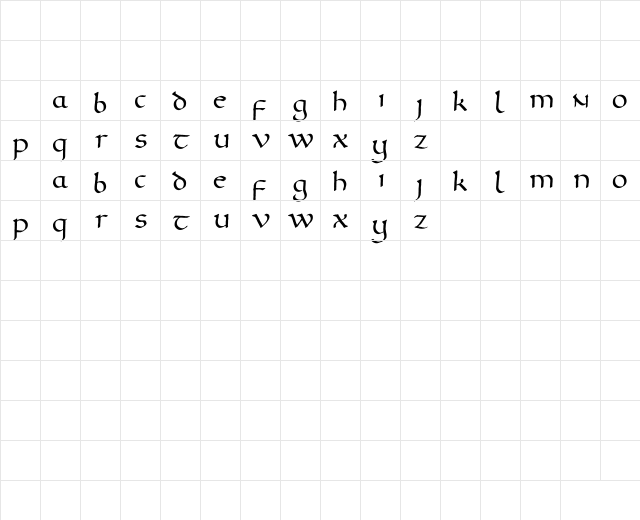
Complete Gourdie Uncial Deux Regular glyph index. Displaying only characters natively supported by Gourdie Uncial Deux Regular font.
Gourdie Uncial Deux is a composed and adaptable typeface that performs quietly and consistently across a wide range of design contexts.